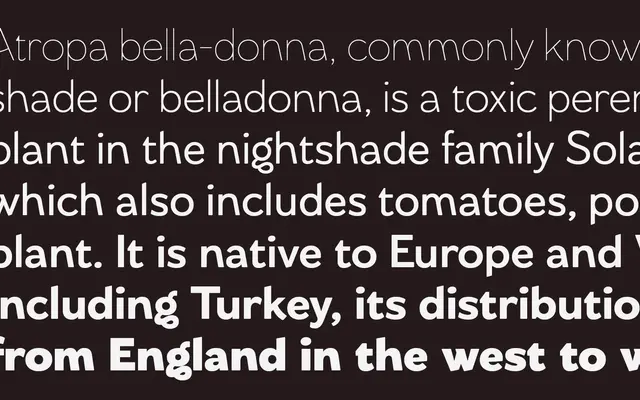
Arsenica Sans
A geometric sans with Art Nouveau and Old Style calligraphic ancestry, extending the Arsenica superfamily into a 21-style display and text system.
Francesco Canovaro's extension of the Arsenica serif superfamily into sans-serif territory retains the calligraphic trace of the original rather than stripping it away, with Art Nouveau and Old Style influences surfacing most clearly in the italics. The family spans Thin to Extrabold across two subfamilies: Arsenica Sans for editorial and display use with full italic complement, and Arsenica Sans Text with reduced stylistic detail for body setting. Nine stylistic sets, oldstyle figures, contextual alternates and a variable font make it a flexible system for identity work as much as editorial typesetting.
A geometric sans-serif that retains Old Style and Art Nouveau calligraphic influences from its parent serif family, giving it a warmer, more characterful construction than a neutral geometric.